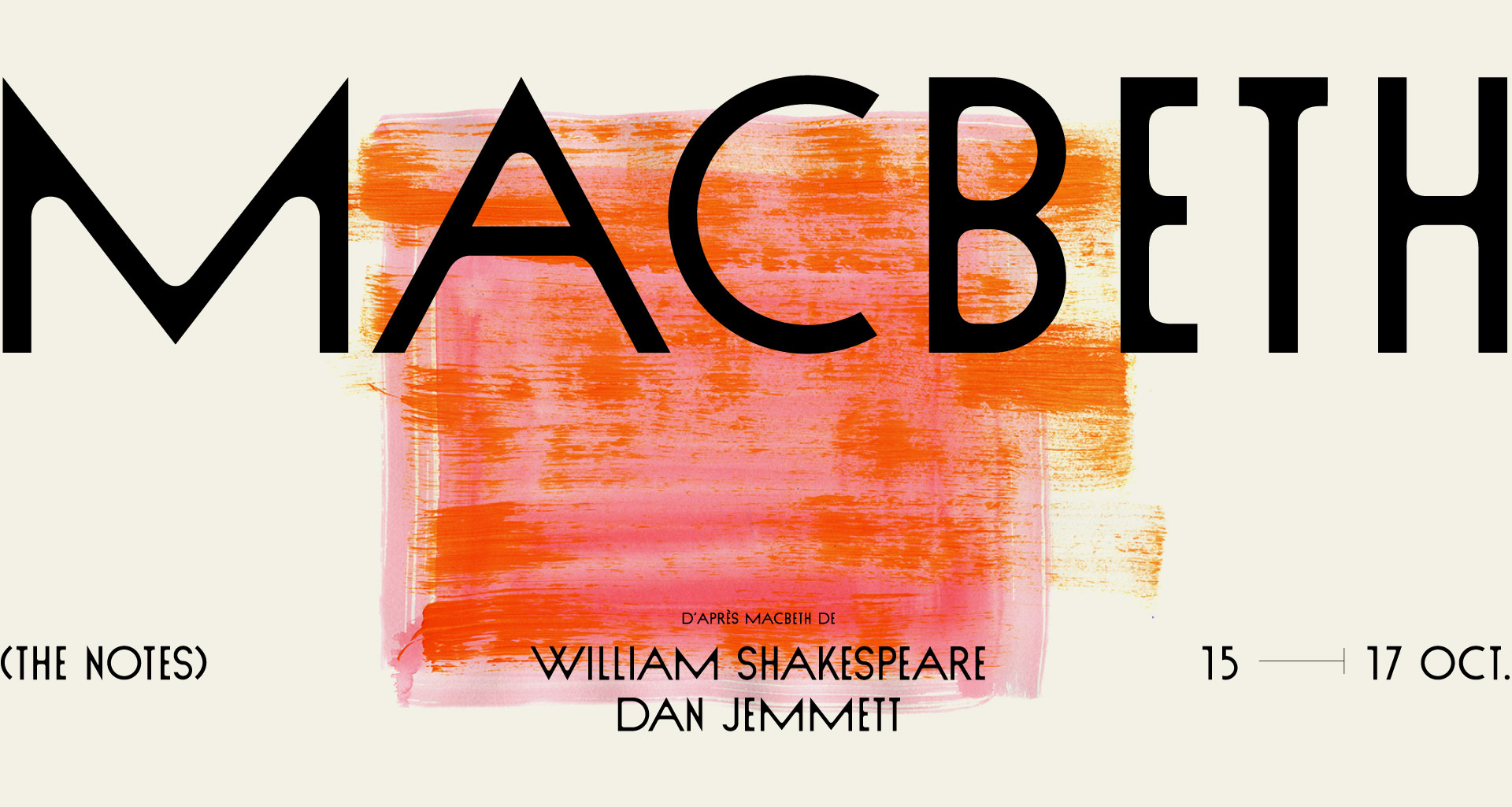
Sud
Display - 1 weight
Release
2015 -
Designer
Jérémy Schneider
Sud was designed in 2015 by Jérémy Schneider as part of the 2015-2016 identity of the « Théâtre des Bouffes du Nord » in Paris. The font is particular for its unlikely widths, where some letters tend to surprisingly expand or trim themselves. It was conceived together with Nord, a bolder sister version, both intending to harmoniously co-exist in the graphic identity of the theater.